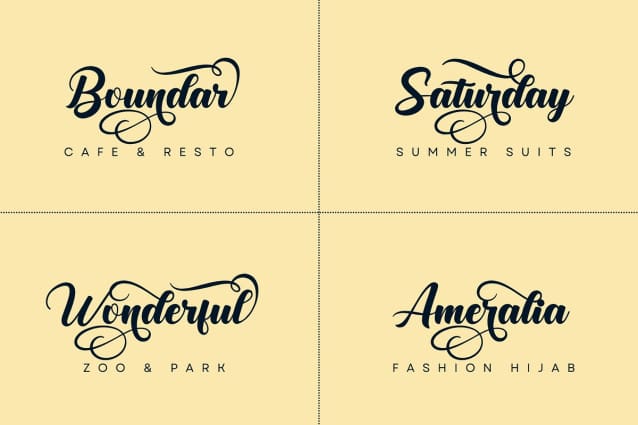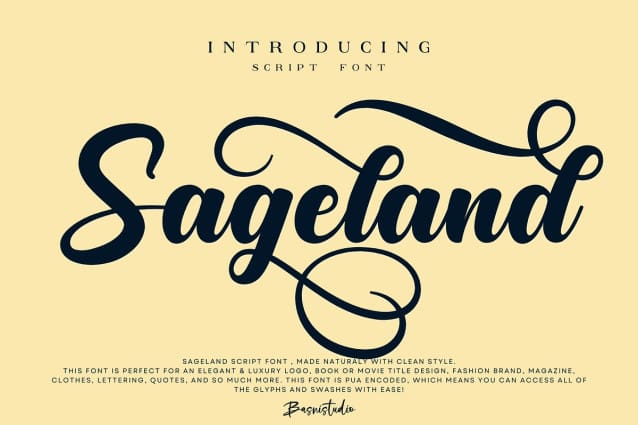
Sageland Font
Sageland Font, made by Naturaly Brush & Clean Style. This Font is perfect for an elegant & luxury logo, book or movie title design, fashion brand, magazine, clothes, lettering, quotes, and so much more. This font is PUA encoded, which means you can access all of the glyphs and swashes with ease!